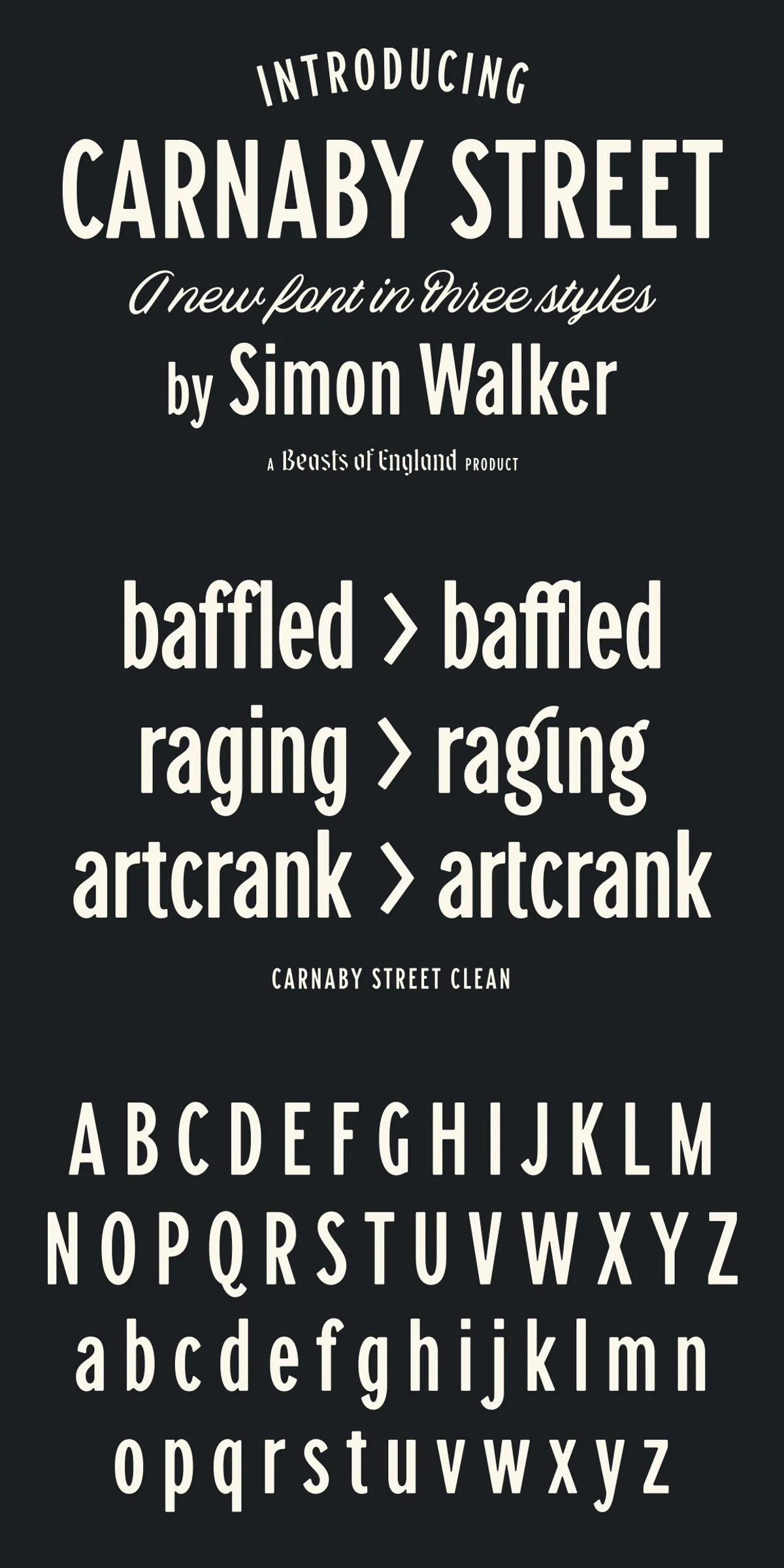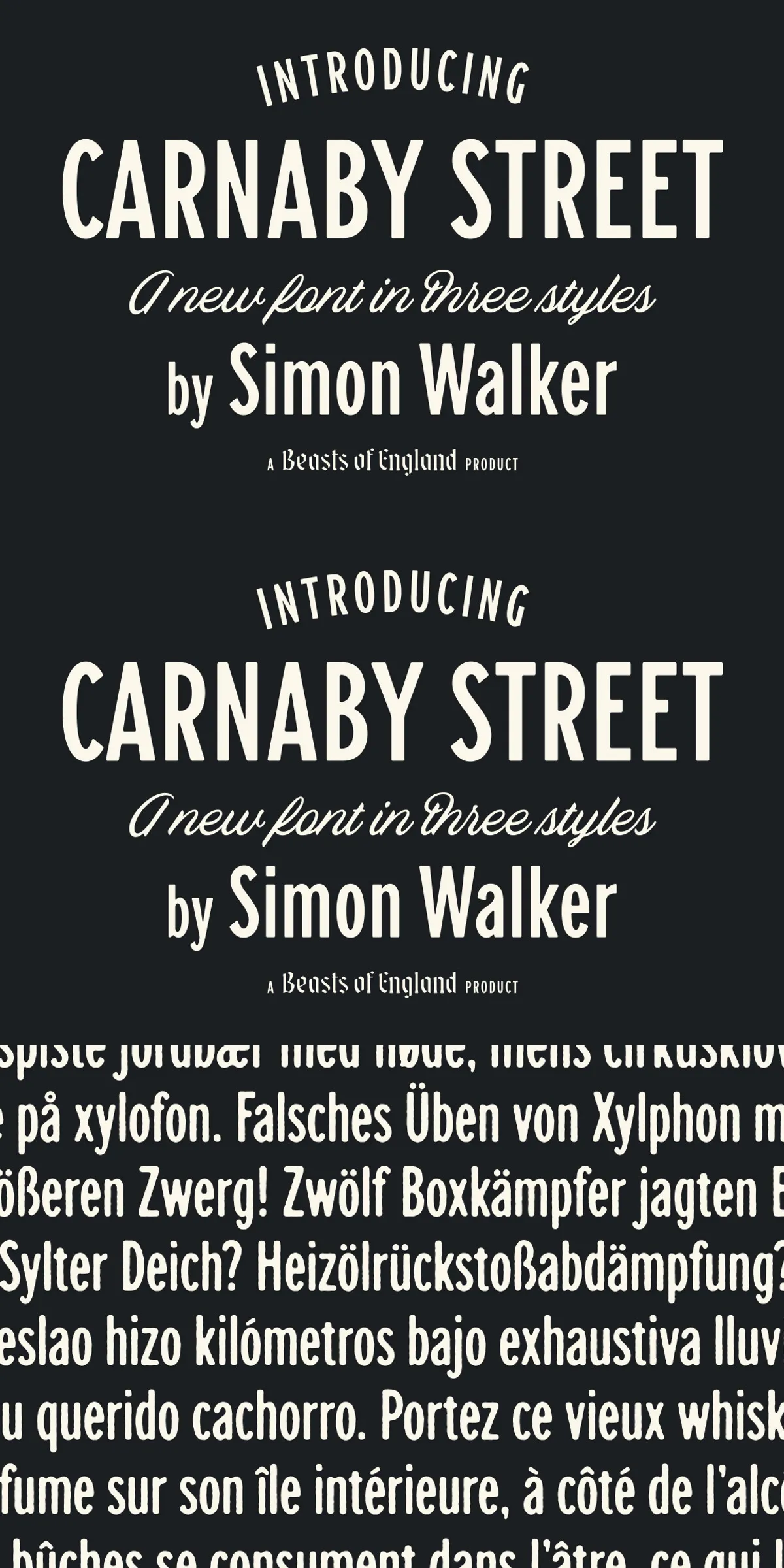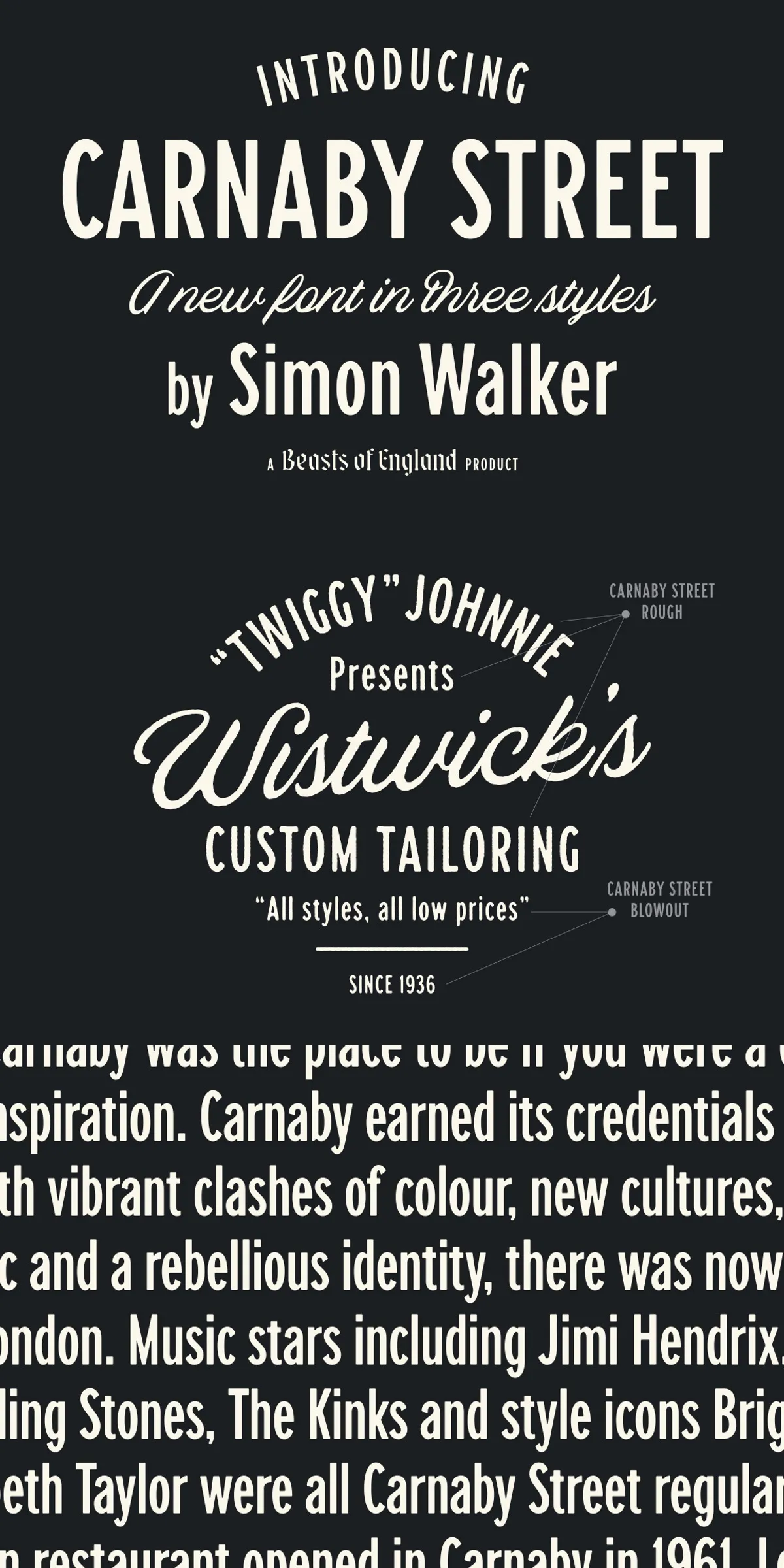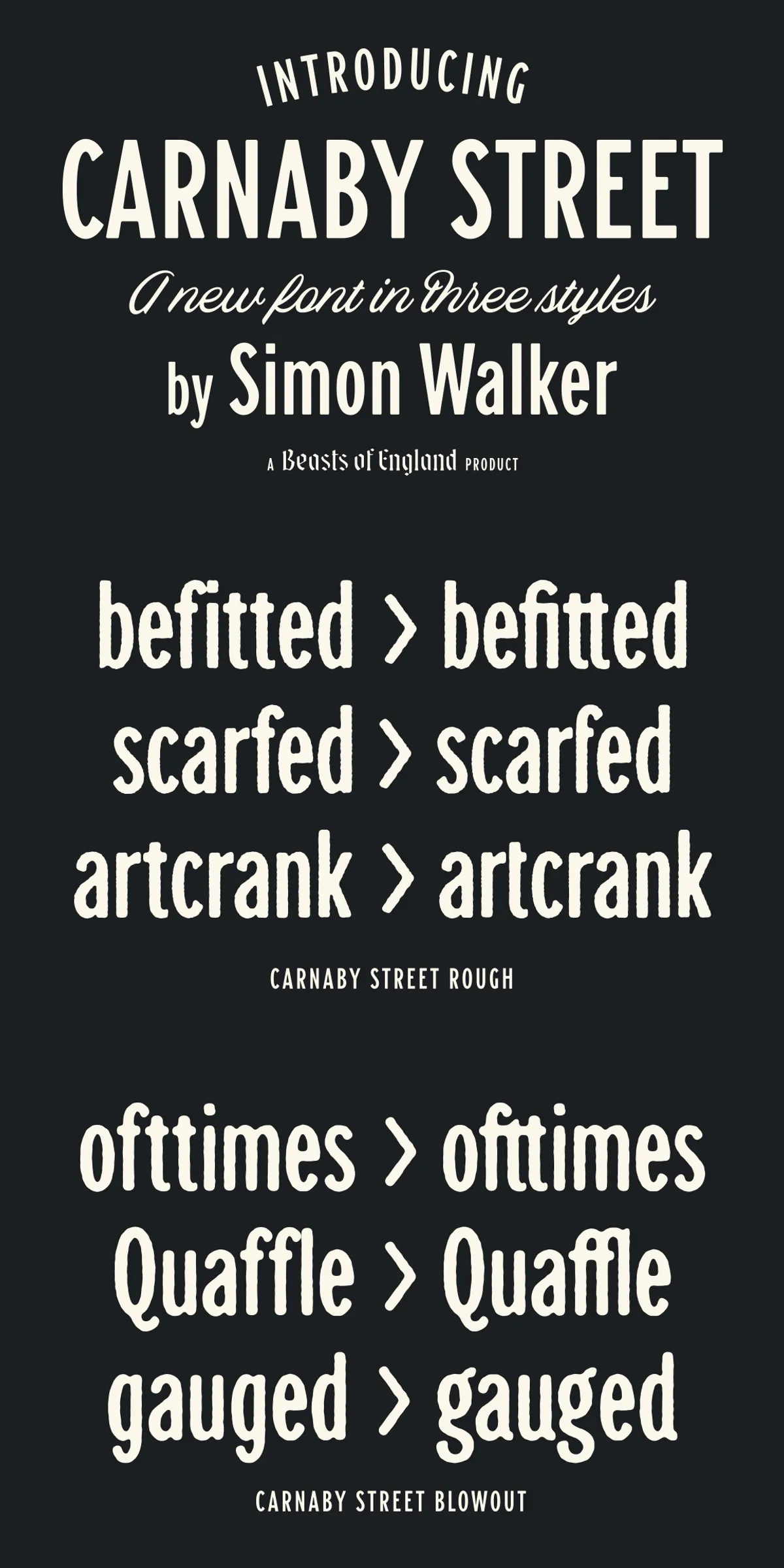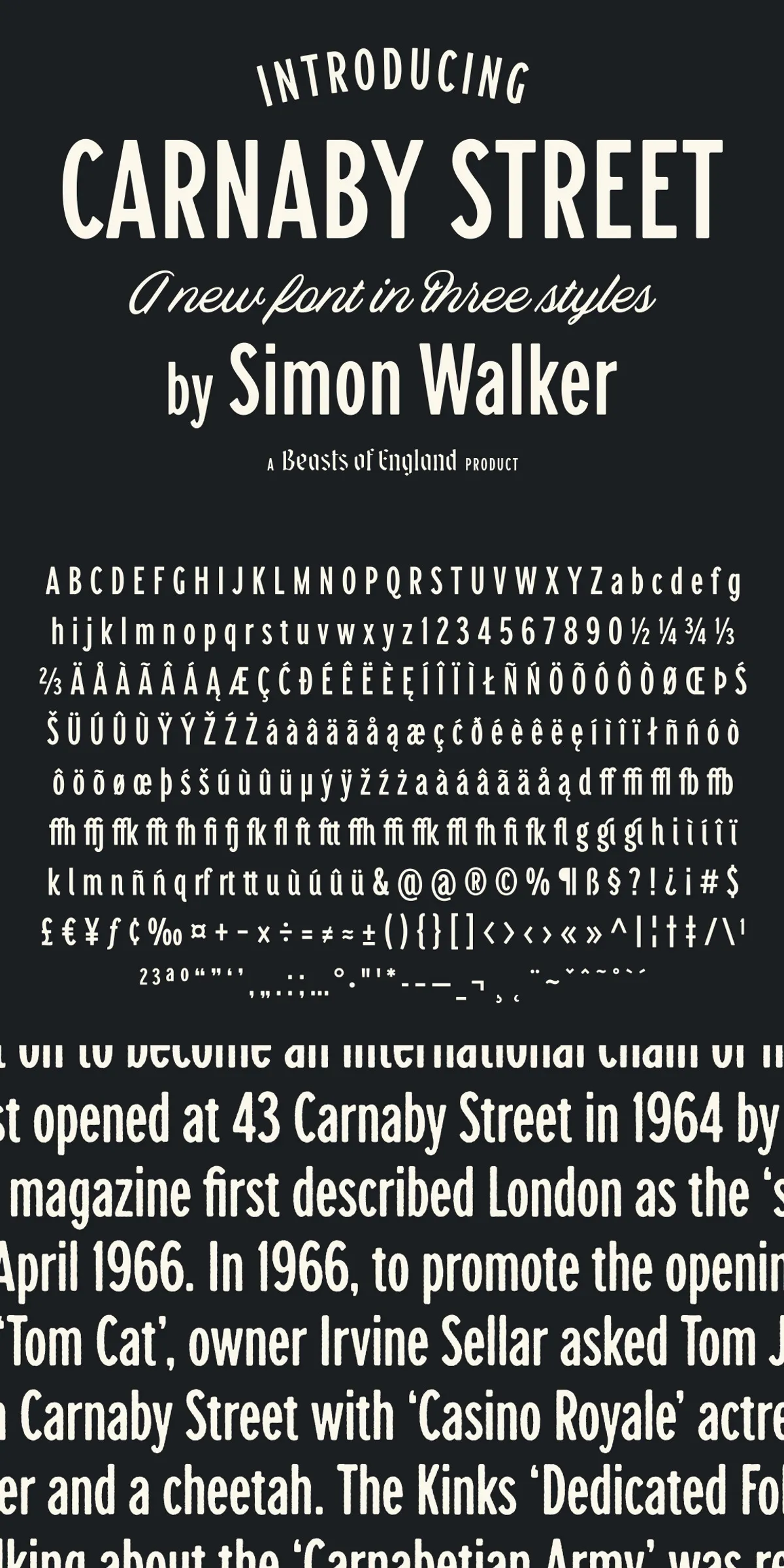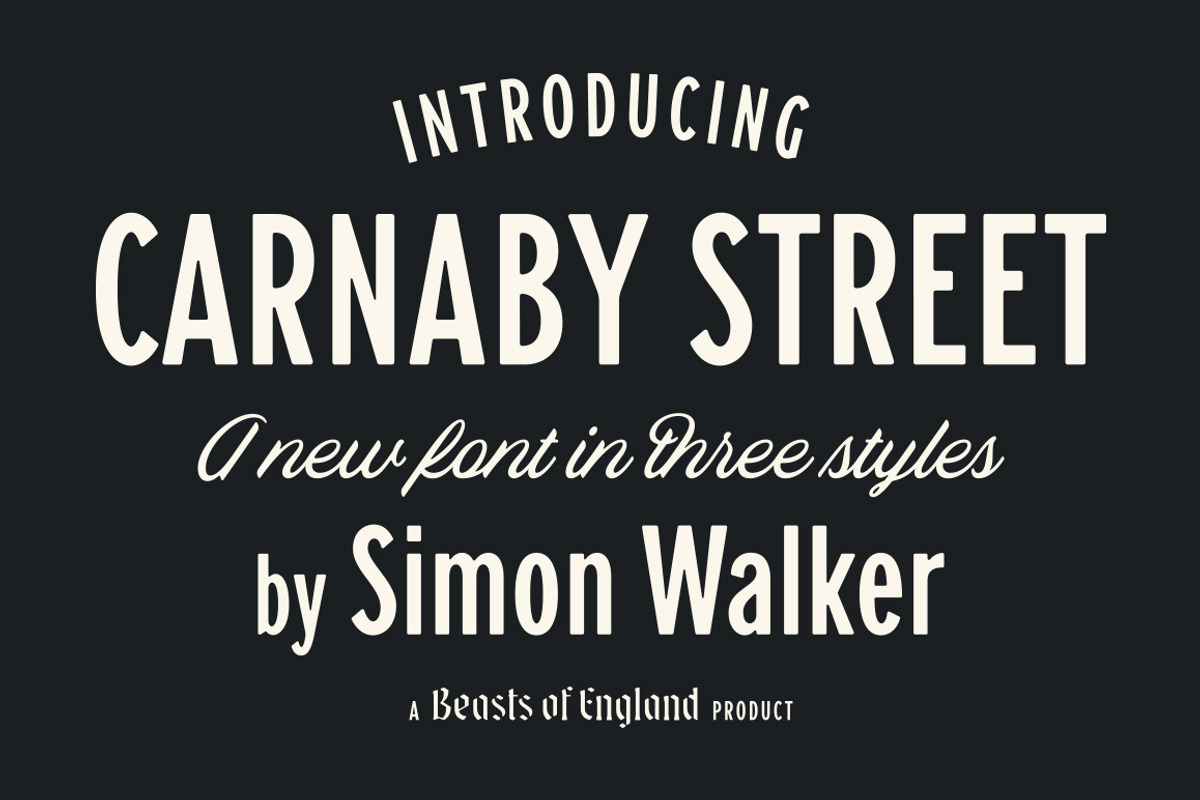
Carnaby Street
Step into the vibrant heart of 1960s London with Carnaby Street, a high-energy, condensed display font that channels the bold style and rebellious elegance of the British mod movement. Inspired by the iconic Carnaby Street — the epicenter of youth fashion, music, and innovation — this font doesn’t just look good — it feels like a cultural moment in motion. From leather jackets to miniskirts, from scooter rides to rock ’n’ roll beats, Carnaby Street delivers authenticity with every letter.
Unleash the Authenticity of 1960s British Street Culture
Fully Immersive Retro Design with Historical Depth
Carnaby Street is more than a typography choice — it’s a design statement. Rooted in the mid-century aesthetics of a transformative era, it merges sharp, clean lines with subtle imperfections that reflect hand-drawn signage, vinyl records, and underground fashion magazines. Every character is crafted to echo the energy of postwar optimism, youthful rebellion, and a desire for modernity. Whether you’re launching a vintage clothing brand, designing a music festival poster, or creating retro-inspired packaging, this font anchors your project in authentic history.
Engineered for Maximum Versatility and Creative Control
Three Distinct Styles: Clean, Rough, and Blowout
Unlike standard fonts with limited variation, Carnaby Street gives you three unique styling options, each designed to be used strategically in a single layout for maximum visual texture and impact:
• Clean Style — Ideal for headlines, logos, and minimalist designs where clarity and precision matter. Sharp, well-proportioned, and perfectly readable at small sizes.
• Rough Style — Adds grit and character with subtle texture and uneven edges. Perfect for background elements, vintage flyers, and editorial headlines where a raw, authentic feel is desired.
• Blowout Style — A high-contrast, aggressively bold variant that delivers maximum visual punch. Designed to dominate headlines, social media posts, and large-format prints.
Use the Rough and Blowout styles at different scales within the same composition to create layered, dynamic layouts that feel intentionally crafted — not randomly applied. For example, use Rough at medium size for body text and Blowout for the main headline to create visual hierarchy and tactile depth.
Rich Character Set with Over 30 Alternate Characters and Ligatures
Carnaby Street features a comprehensive 294-glyph character set, including:
• Latin, Greek, and Cyrillic support for multi-language design
• 51+ stylistic alternates for letters like ‘A’, ‘S’, ‘B’, and ‘K’ to vary visual tone
• 30+ ligatures (e.g., “fi”, “ff”, “ffi”) that eliminate awkward spacing and increase readability
• Contextual alternates that shift automatically based on surrounding characters
These advanced features give you the tools to craft professional, polished projects without extra manual tweaking.
Powerful Tools for Designers Who Demand Precision
OpenType Features for Pro-Level Typography
• Stylistic Set 1–5 — Cycle through distinct design variants with one click.
• Ligature Control — Toggle ligatures on/off for different design moods.
• Case-Sensitive Forms — Automatically adapt case formatting for headlines and titles.
• Swash and Stylistic Alternates — Add decorative flair to initials or signature elements.
With these features, you’re not just choosing a font — you’re activating a full typographic toolkit.
Perfect for Any Project That Needs a Bold, Vintage Voice
Endless Applications, One Font to Rule Them All
Whether you’re a graphic designer, brand strategist, or creative entrepreneur, Carnaby Street powers a wide range of high-impact projects:
• Brand Identity & Logo Design — Create instantly memorable logos for fashion labels, indie record labels, and lifestyle brands.
• Music & Festival Posters — Deliver authenticity to rock, ska, mod, and pop culture events.
• Apparel & Merchandise — Print on t-shirts, hoodies, tote bags, and caps with bold, crowd-pleasing visibility.
• Packaging & Labeling — Modernize product lines with retro flair and instant recognition.
• Social Media & Digital Ads — Command attention with bold, scroll-stopping headlines.
This font isn’t just a visual tool — it’s a creative catalyst that elevates any design from generic to iconic.